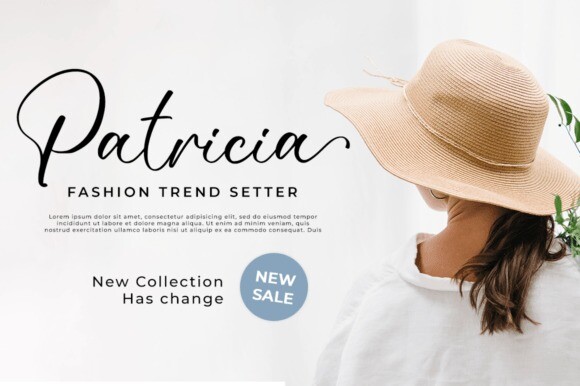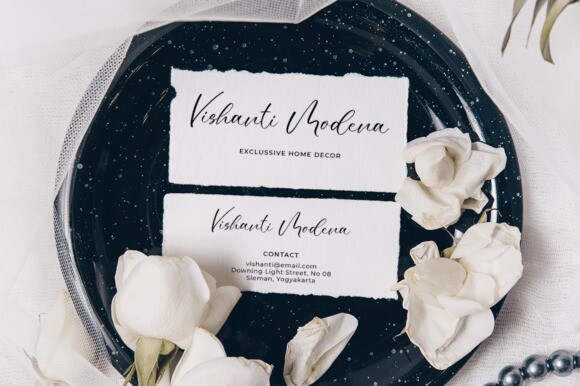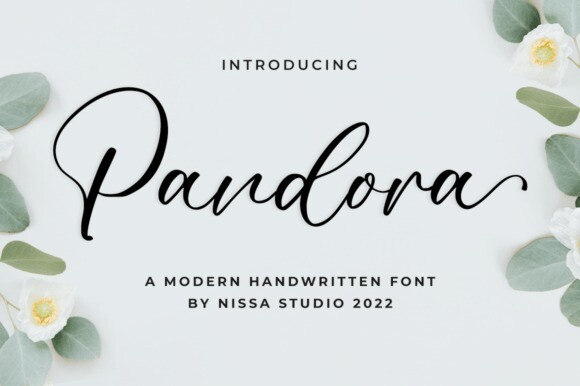
Pandora Script Font
Pandora Script Font is a lovely and delicate script font that exudes elegance and class. This font is perfect for those who need a beautiful and refreshing look to their designs. This font is PUA encoded, which means you can access all of the glyphs and swashes with ease!